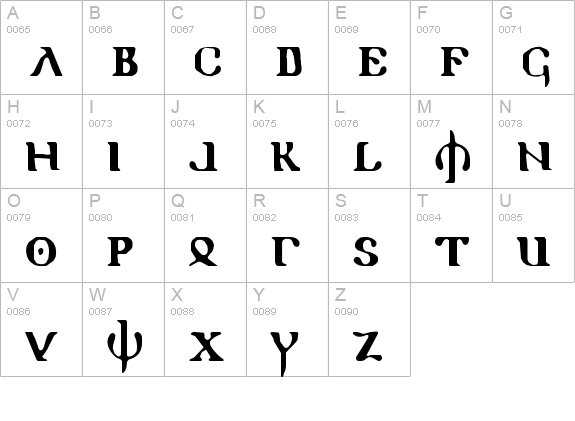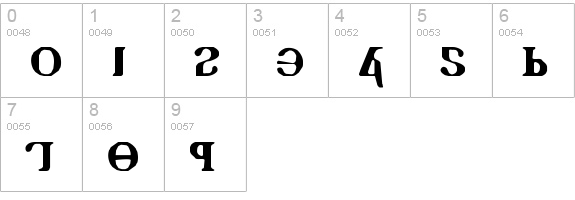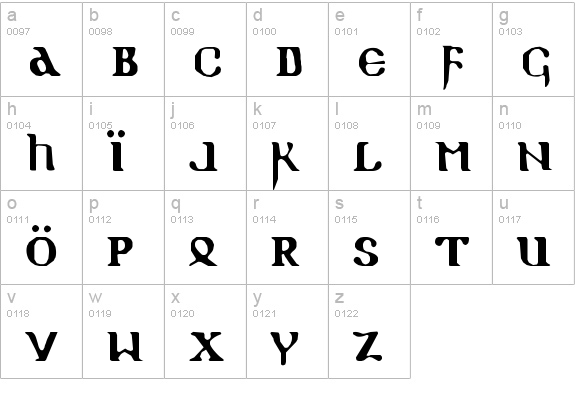
Holy Empire Font Details
The Holy Empire font is a majestic and regal typeface that exudes power and sophistication. With its ornate details and elegant curves, this font is perfect for adding a touch of grandeur to your design projects. Whether you're creating invitations, posters, or branding materials, Holy Empire will make a bold statement. What's even better is that Holy Empire is available for free download at FontsMarket.com. This means you can easily access and use this stunning font in your projects without any cost. Don't miss out on the opportunity to elevate your designs with the timeless beauty of Holy Empire. Download it today and let your creativity shine!